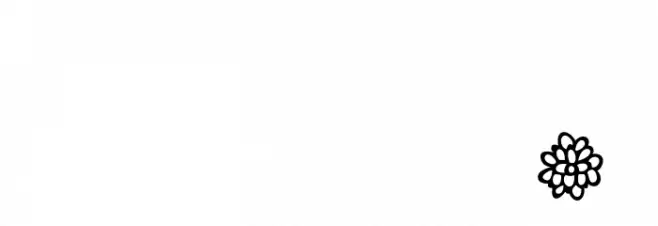
Janda Flower Doodles Font
Janda Flower Doodles Description
A playful collection of hand-drawn floral doodles, each character representing a unique flower or botanical element with whimsical and varied linework. The designs range from simple outlines to more detailed, filled shapes, evoking a casual, artistic feel.
Hand-drawn floral doodle font with whimsical, varied flower illustrations from Dingbats fonts.
- Proposed Projects: Greeting cards, scrapbooking, invitations, decorative headers, children's projects, craft labels.
- Overall Style: Decorative, Playful, Hand-drawn
- Use Case: Decorative elements, Craft projects, Themed headings